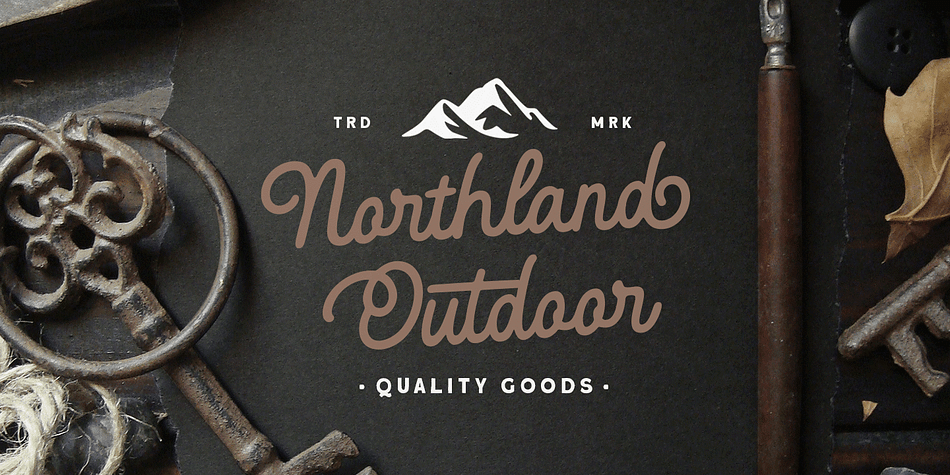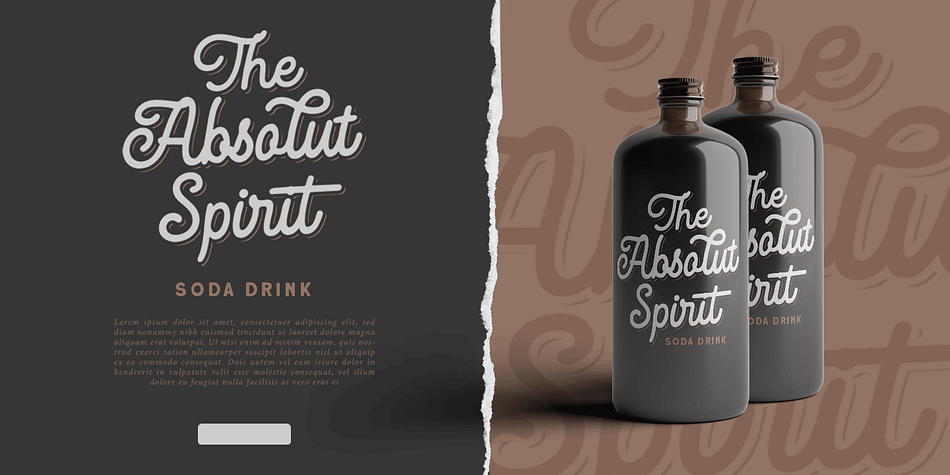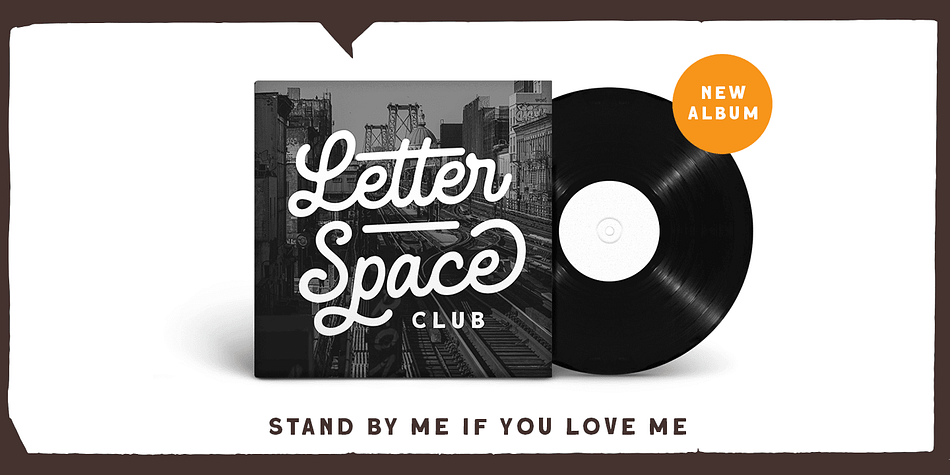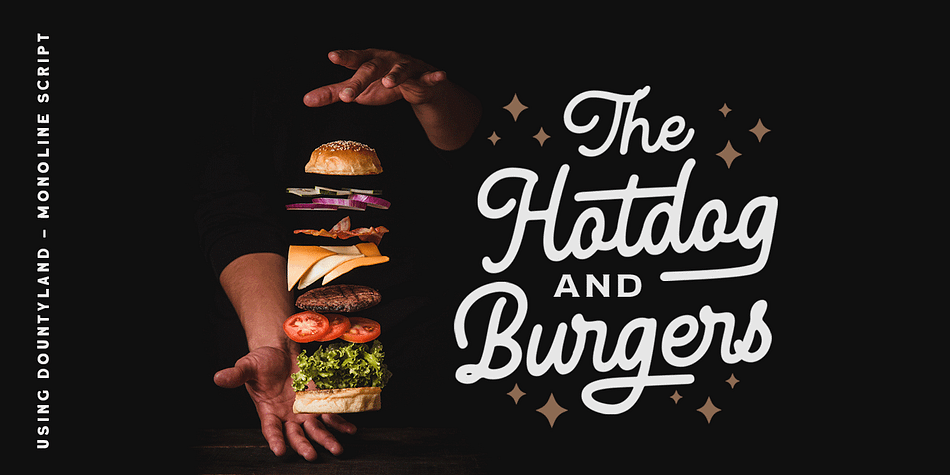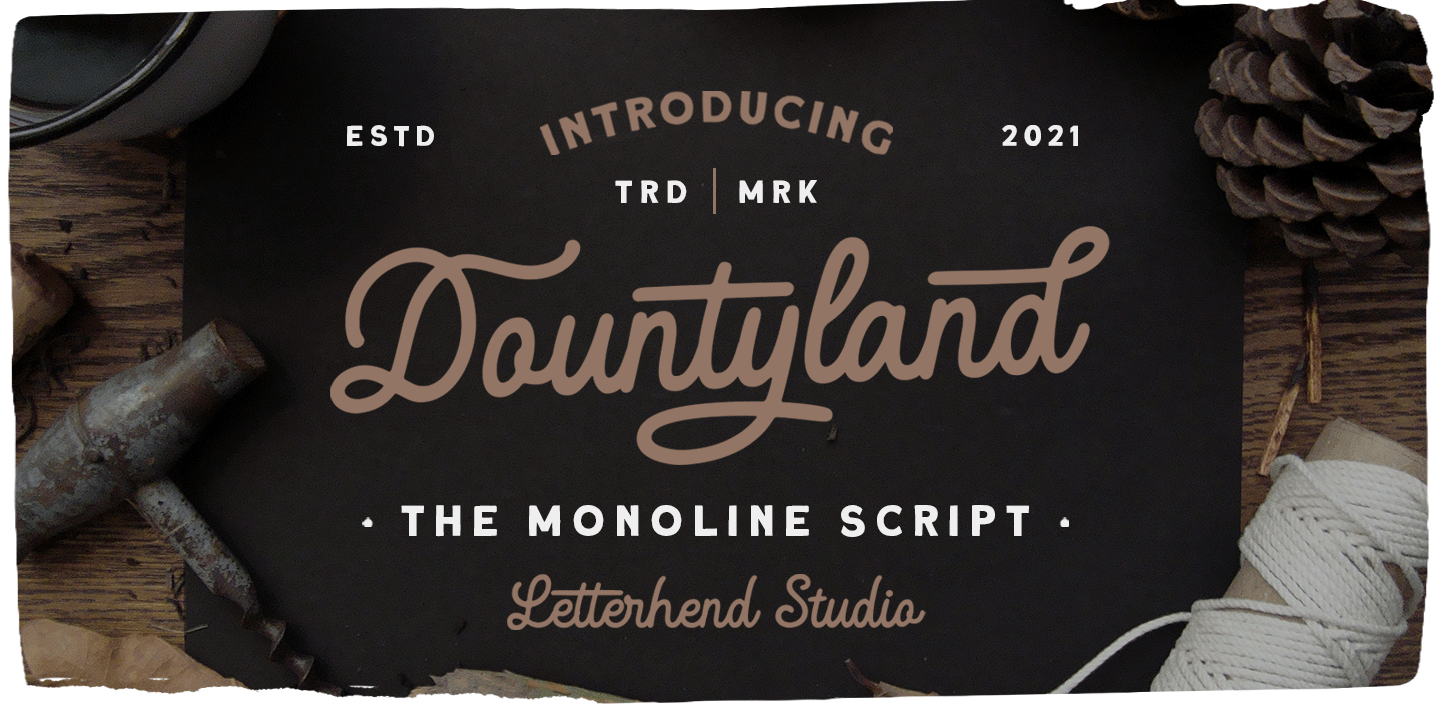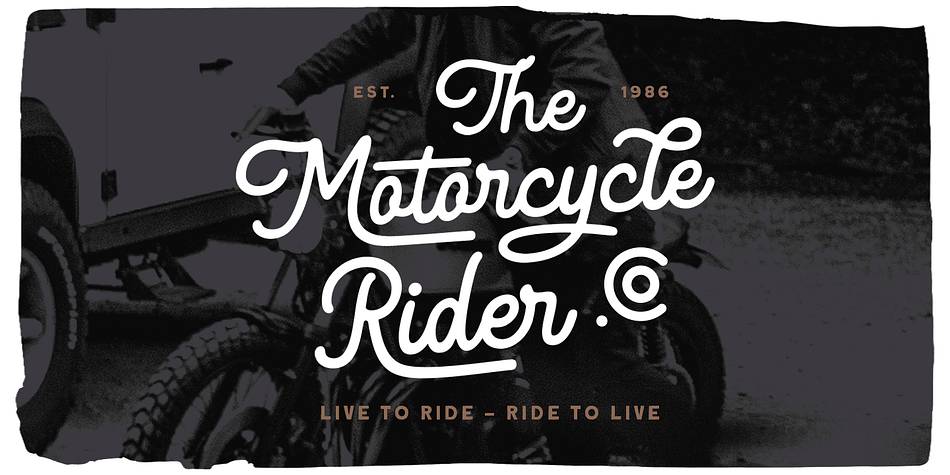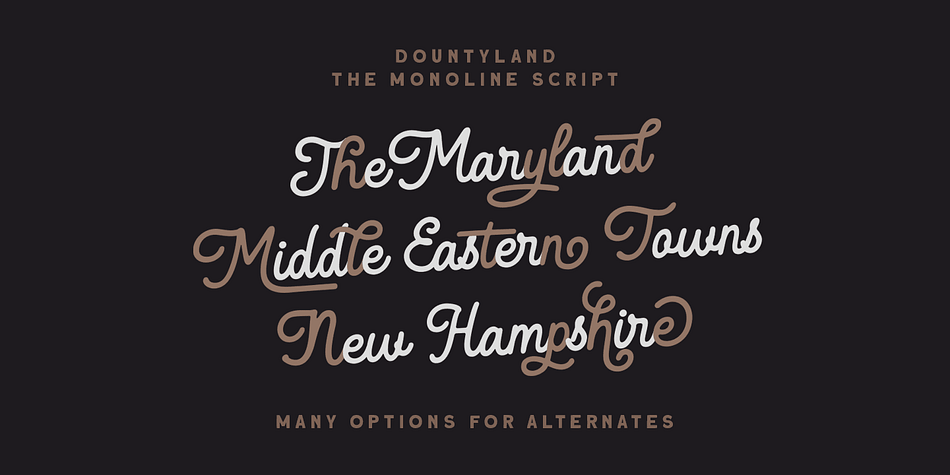
Dountyland
Designed by Hendry Juanda, Dountyland is a script font published by Letterhend Studio.
The Dountyland is a bold monoline script with a touch of vintage look and feel. This type of font perfectly made to be applied especially in logo, headline, signage and the other various formal forms such as invitations, labels, logos, magazines, books, greeting / wedding cards, packaging, fashion, make up, stationery, novels, labels or any type of advertising purpose.
- alternates / swashes and ligatures